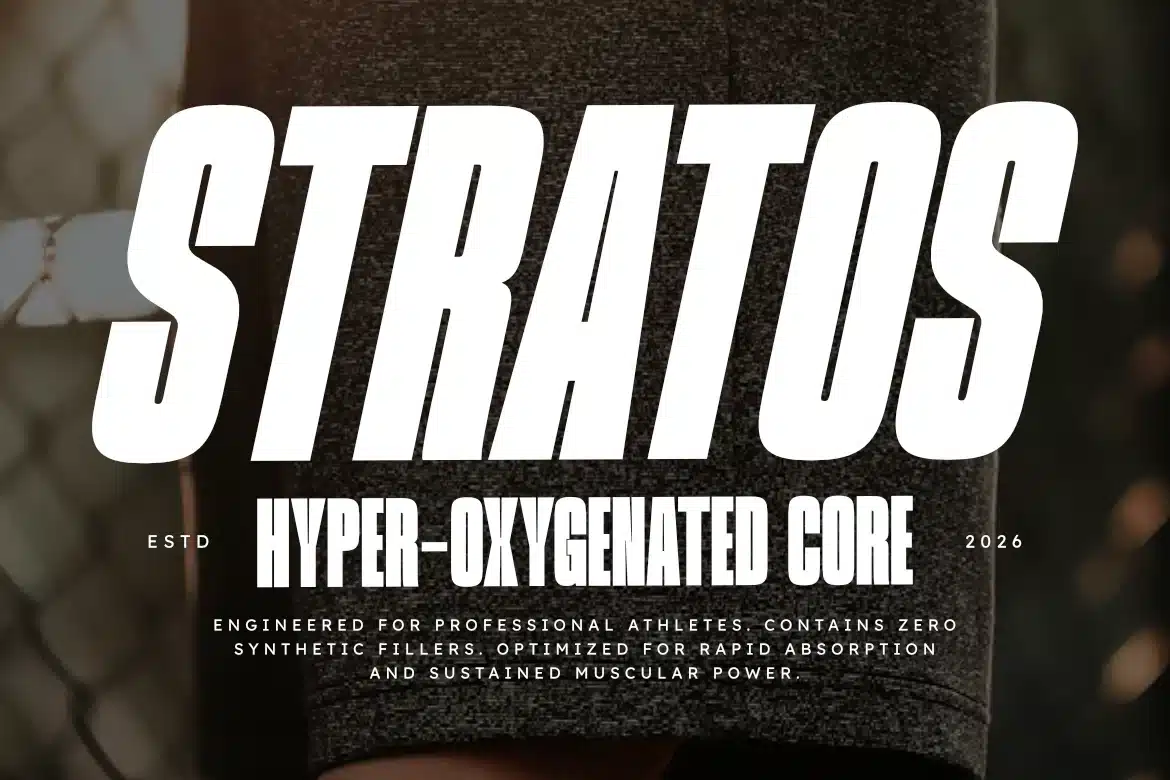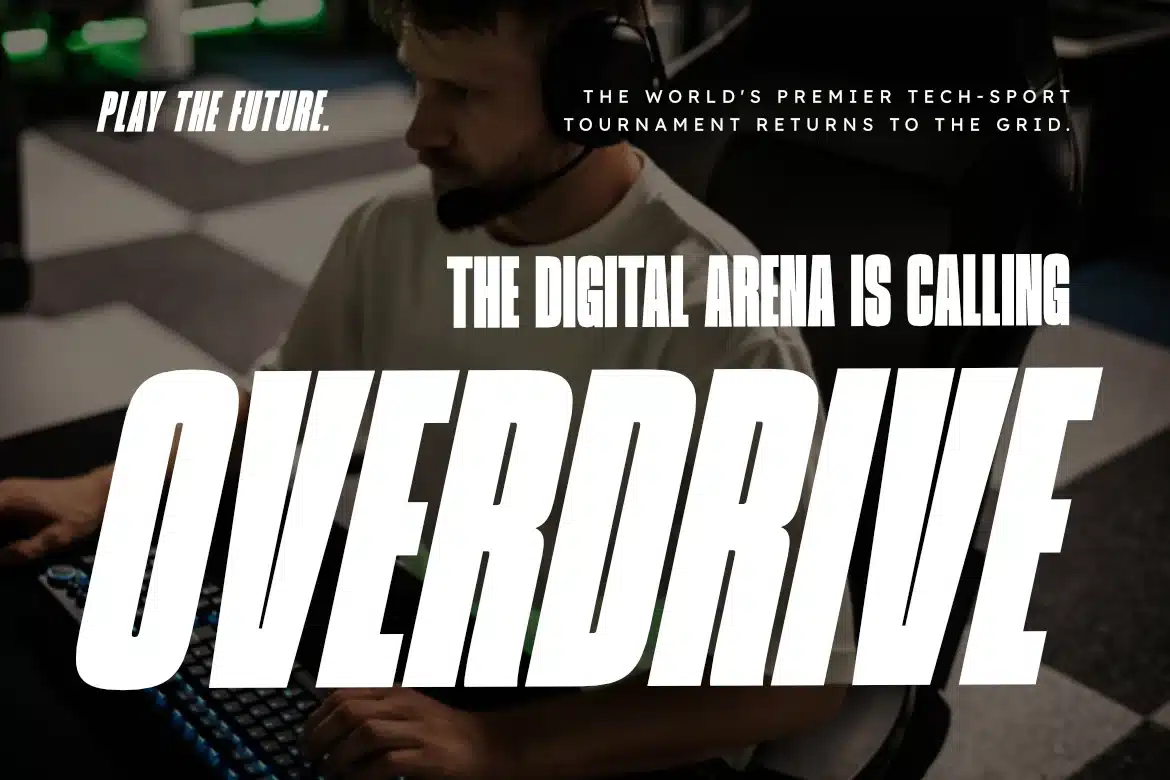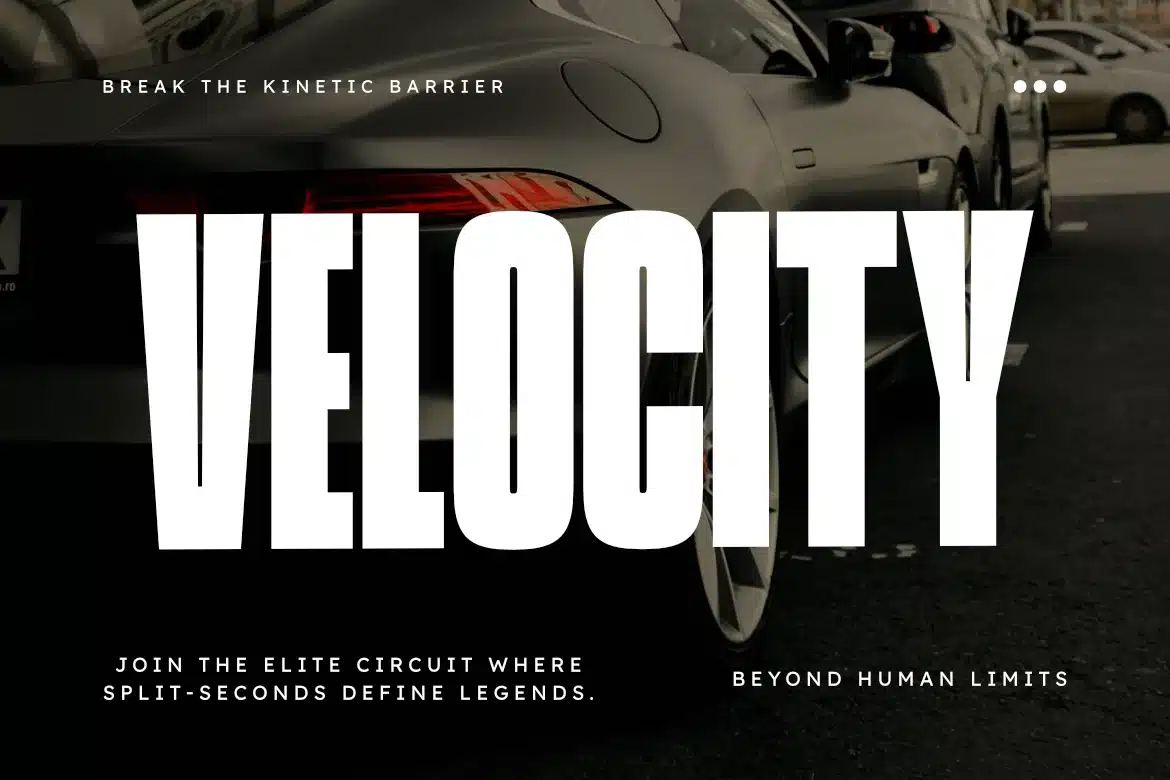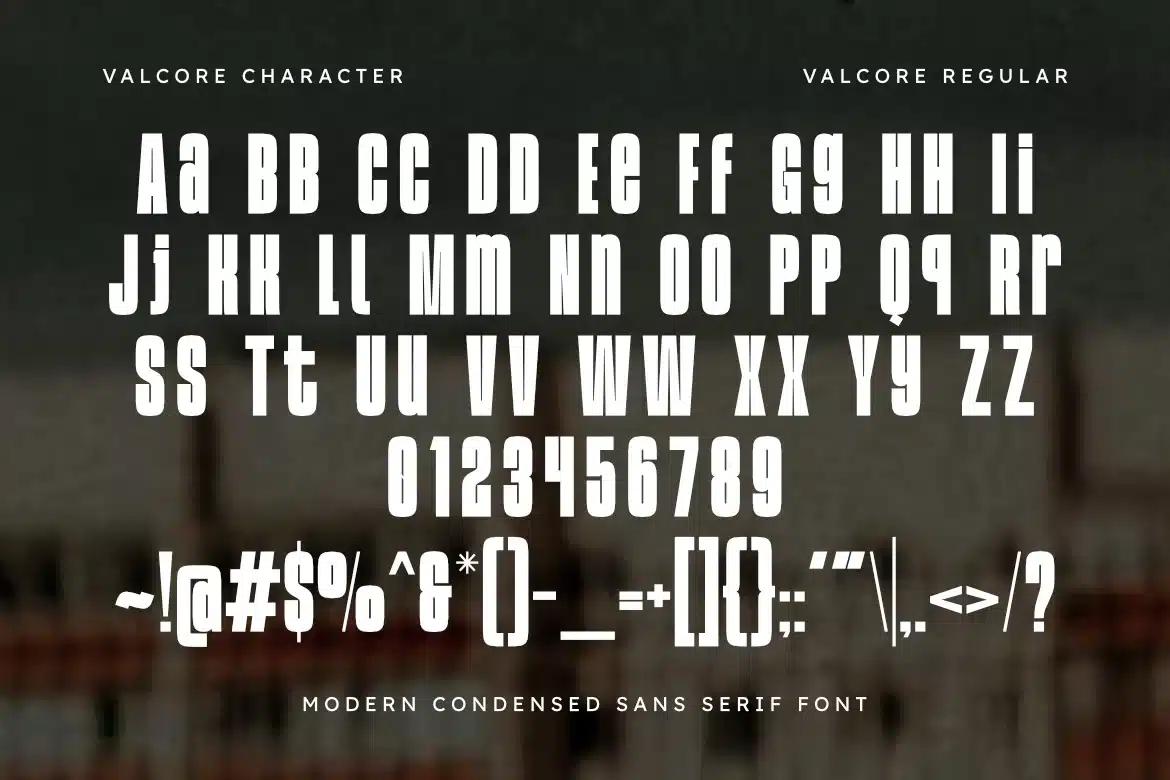
Valcore – Modern Condensed Sans Serif Font
Valcore is a sophisticated and powerful modern condensed sans serif font, thoughtfully designed to capture the essence of strength and high-impact storytelling. With its tall, bold structure and clean geometric lines, Valcore offers a professional aesthetic that brings a touch of confident grace to any creative project.
This font is the ideal choice for designers looking to add a professional yet bold touch to their work. Whether you are crafting high-energy sports branding, a modern automotive logo, or impactful editorial layouts, Valcore provides a seamless blend of contemporary flair and timeless strength.
Main Features:
- Modern Condensed Sans Design: Optimized for a bold, high-impact look.
- Refined and Professional Letterforms: Tall and clean for superior visibility.
- Regular & Italic Styles Included: Offers versatility for headlines and dynamic titles.
- Multilingual Support: Ready for global design projects.
Best Used For:
Sports branding, automotive logos, movie posters, high-impact advertising, minimalist web headers, gym and fitness content, and sophisticated editorial layouts.